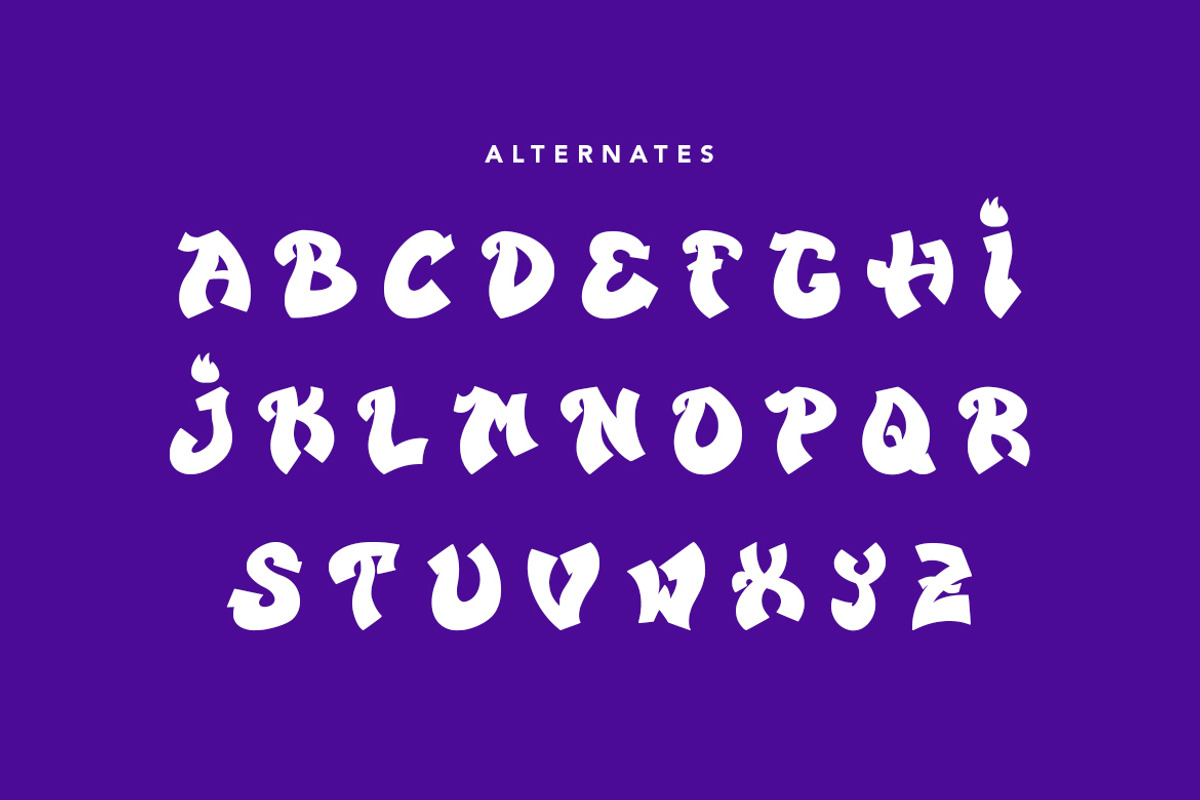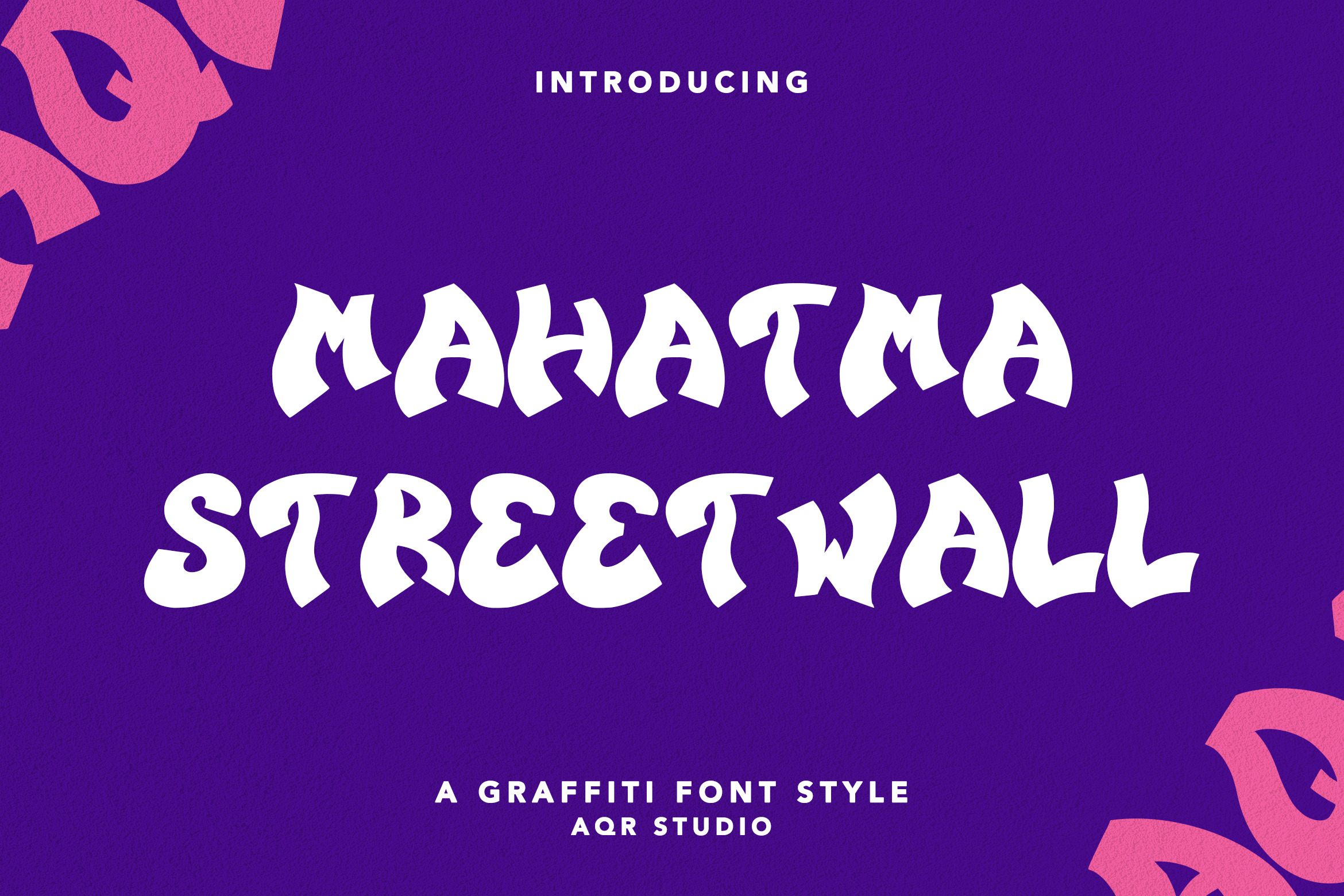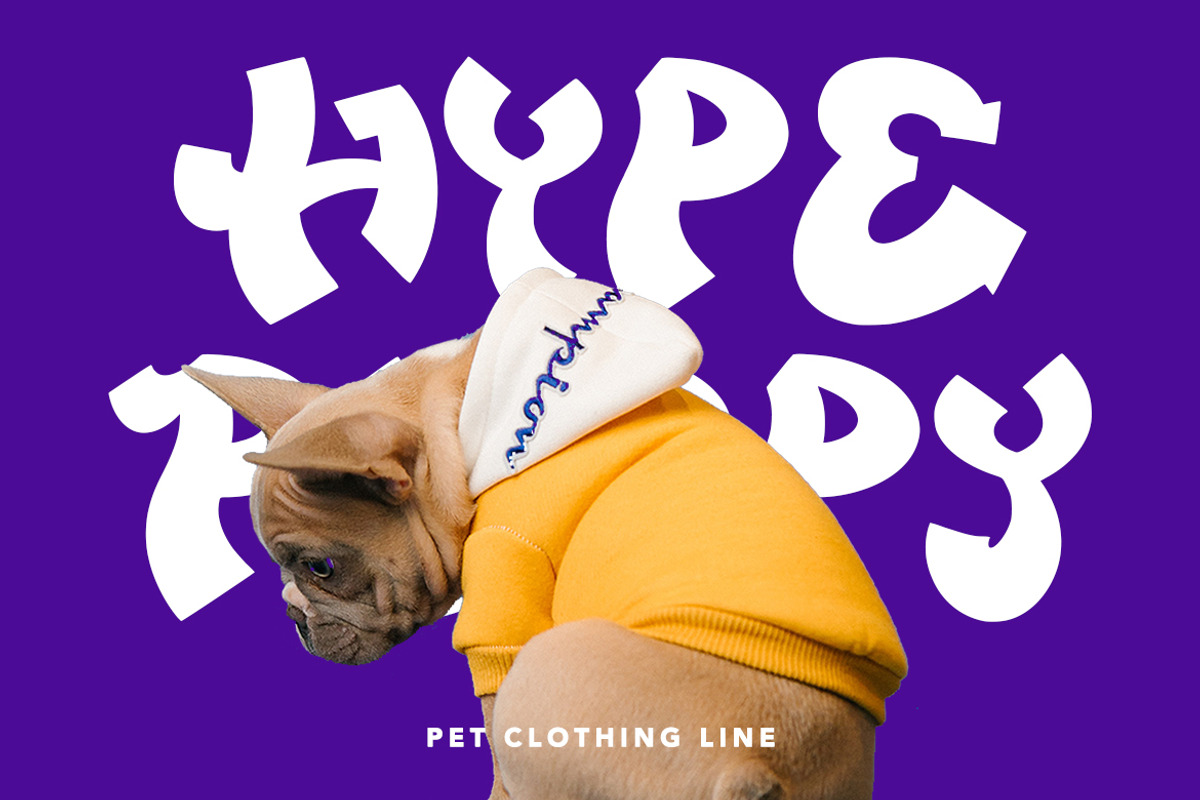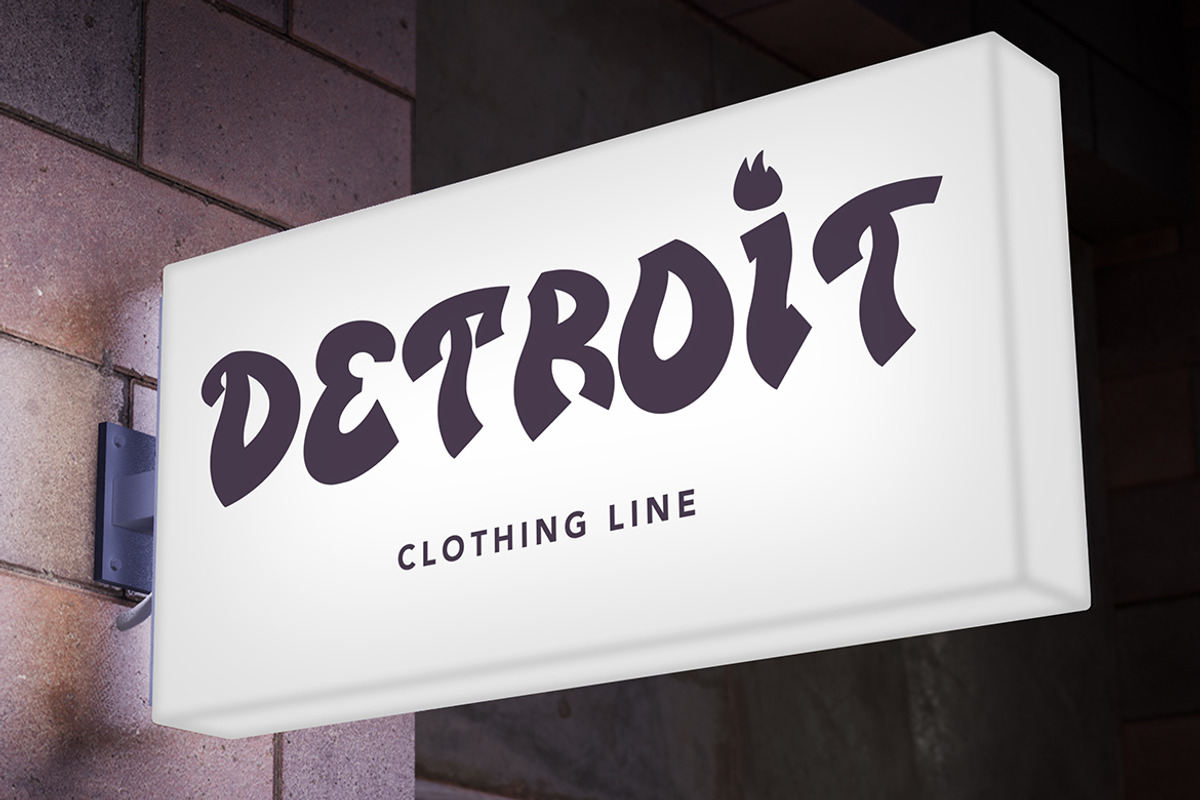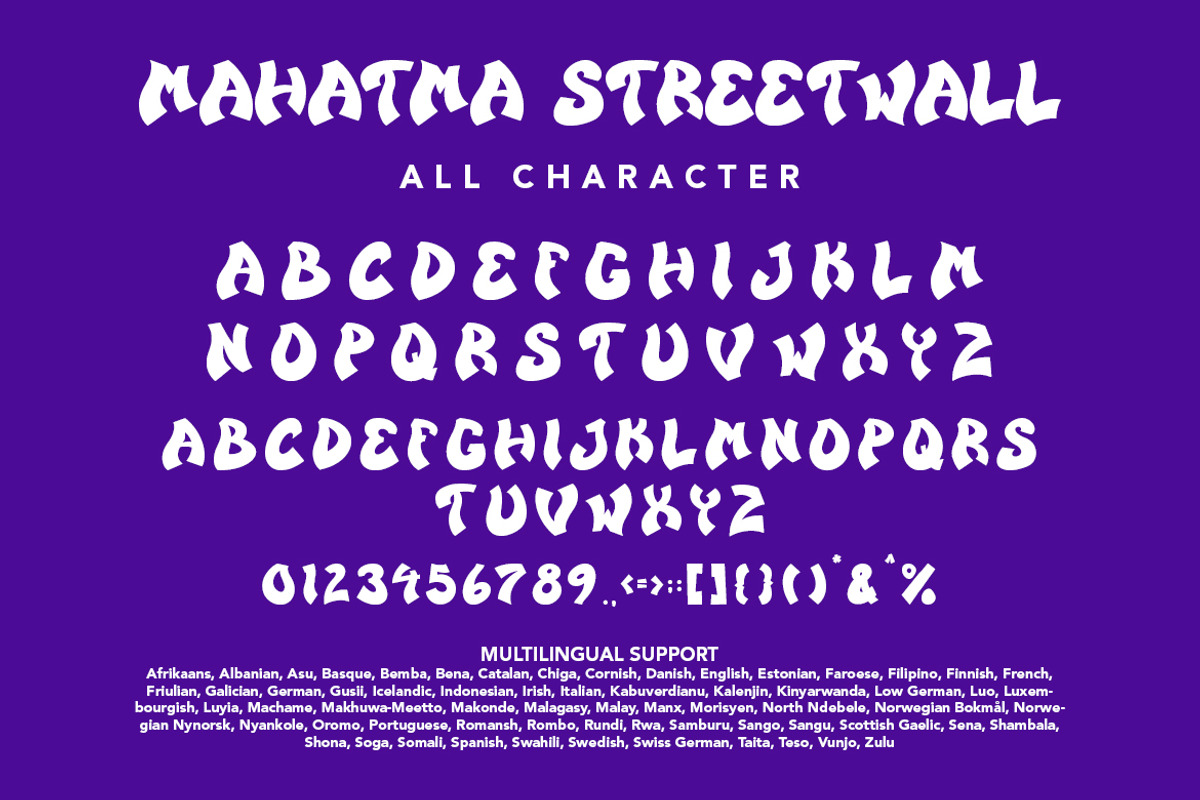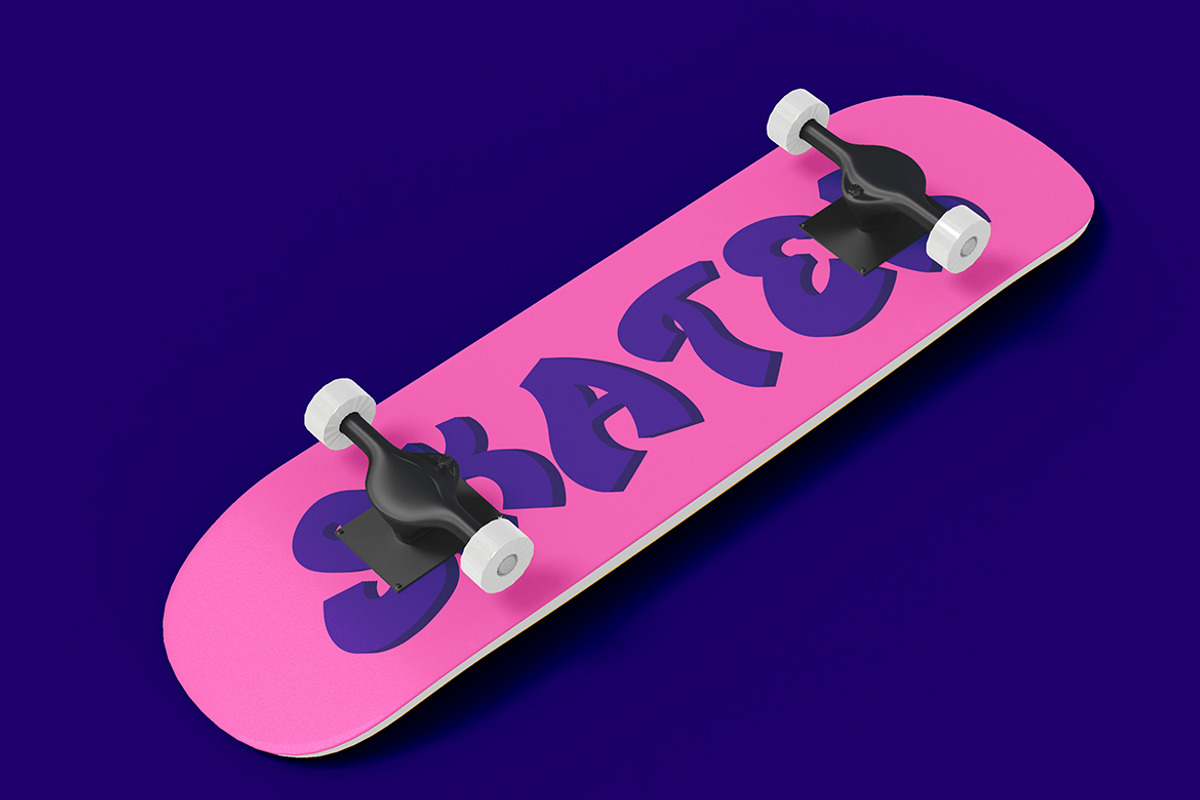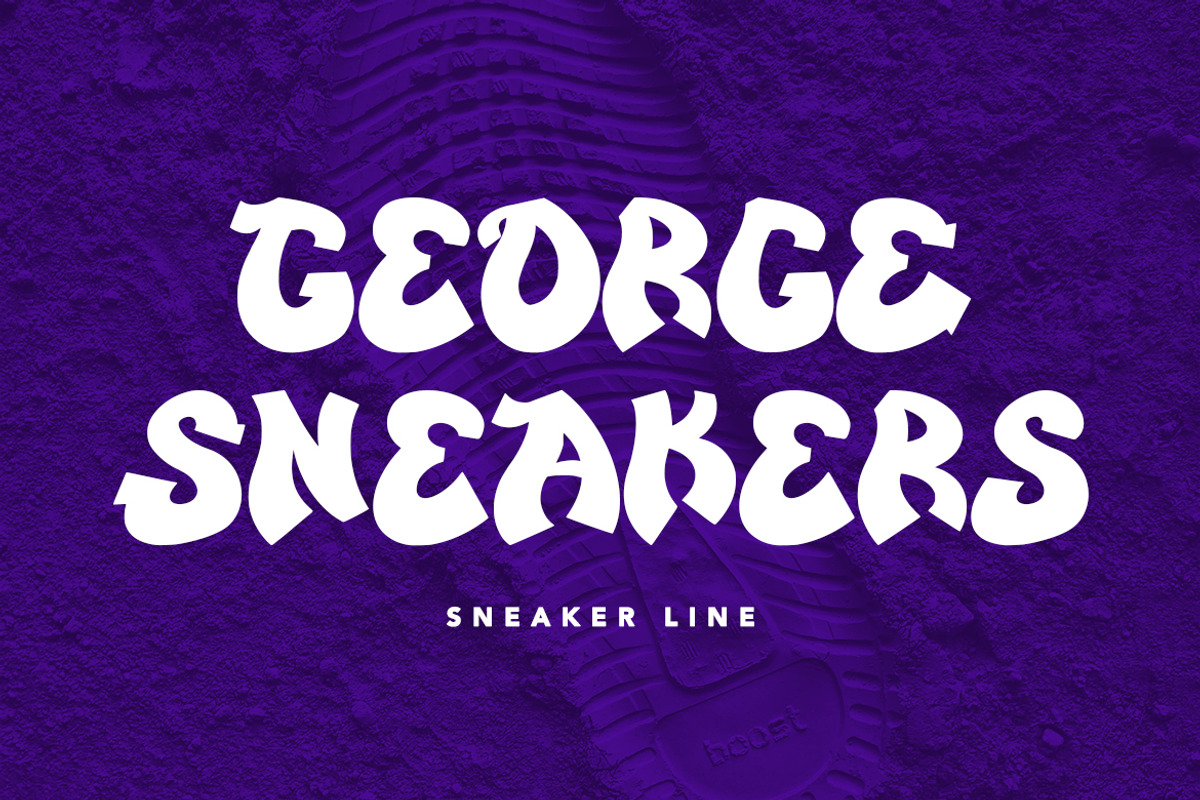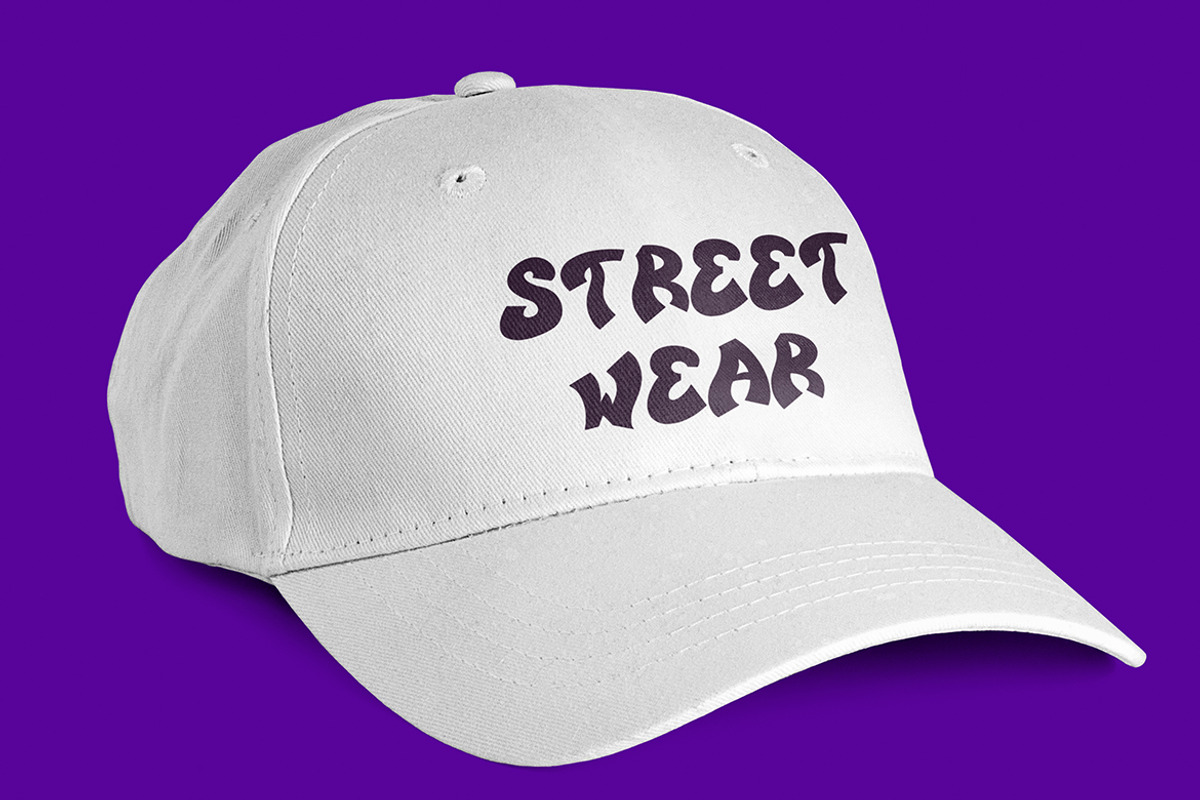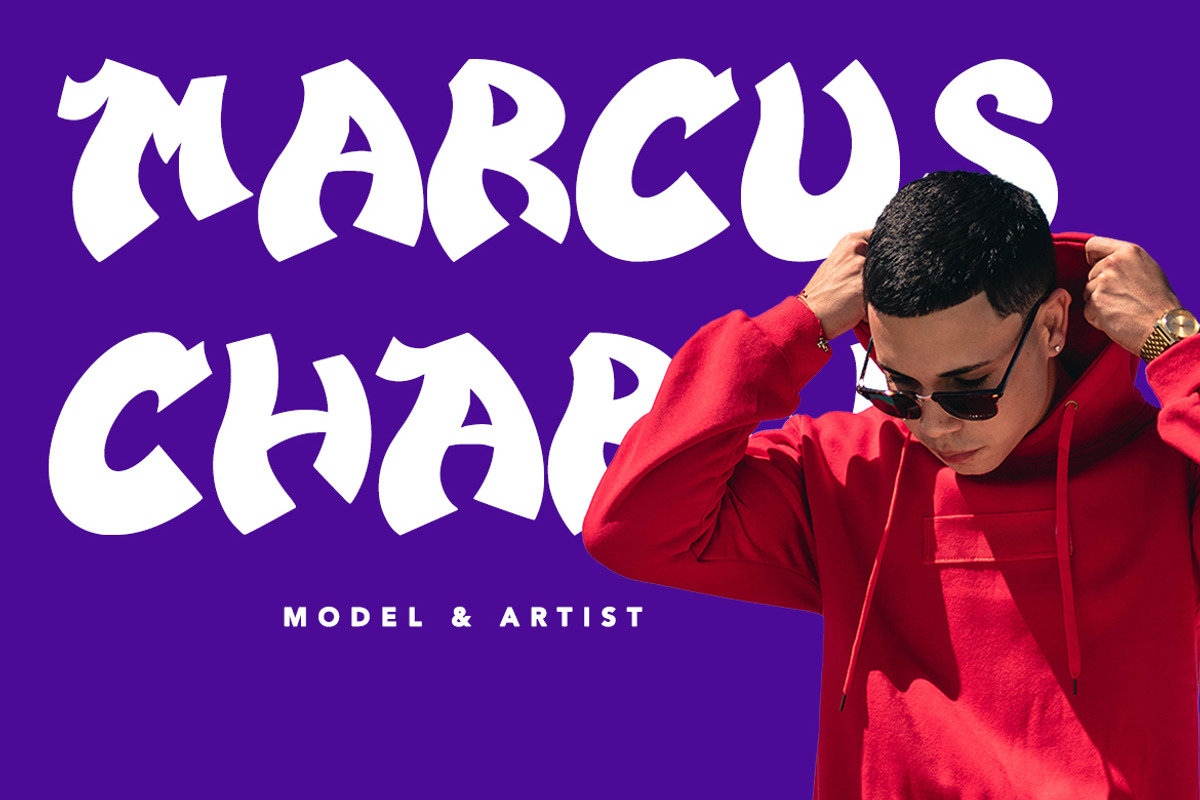
MahatmaStreetwall - Graffiti Font
MahatmaStreetwall - Graffiti Font contains a lowercase, uppercase, symbol, and also supports multi-language. There’s a lot of ligature in this font. MahatmaStreetwall - Graffiti Font also comes with ligatures, stylistic alternates and many more. this font suitable for fashion, branding, catalog and other design that you want.